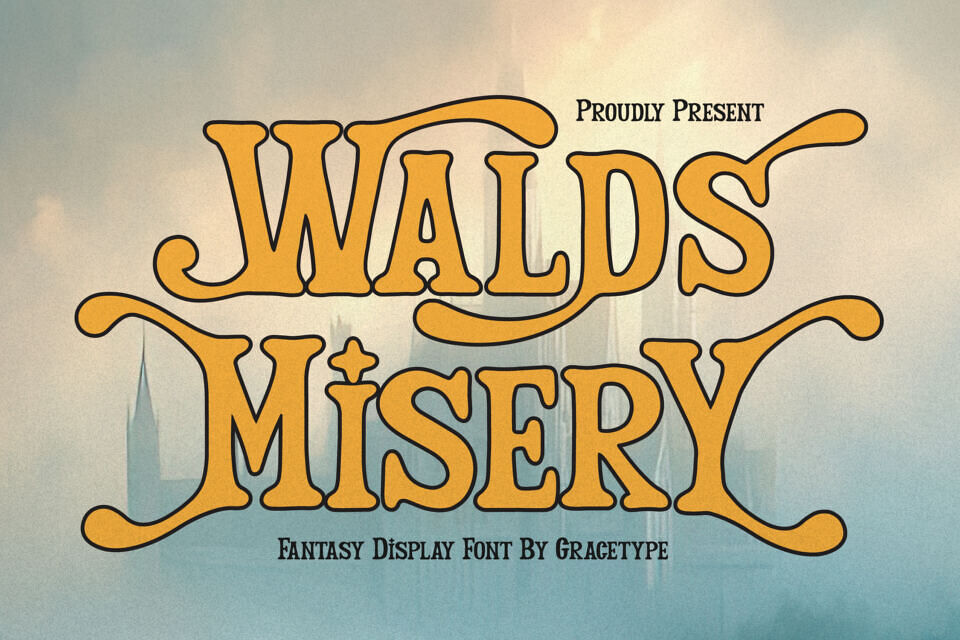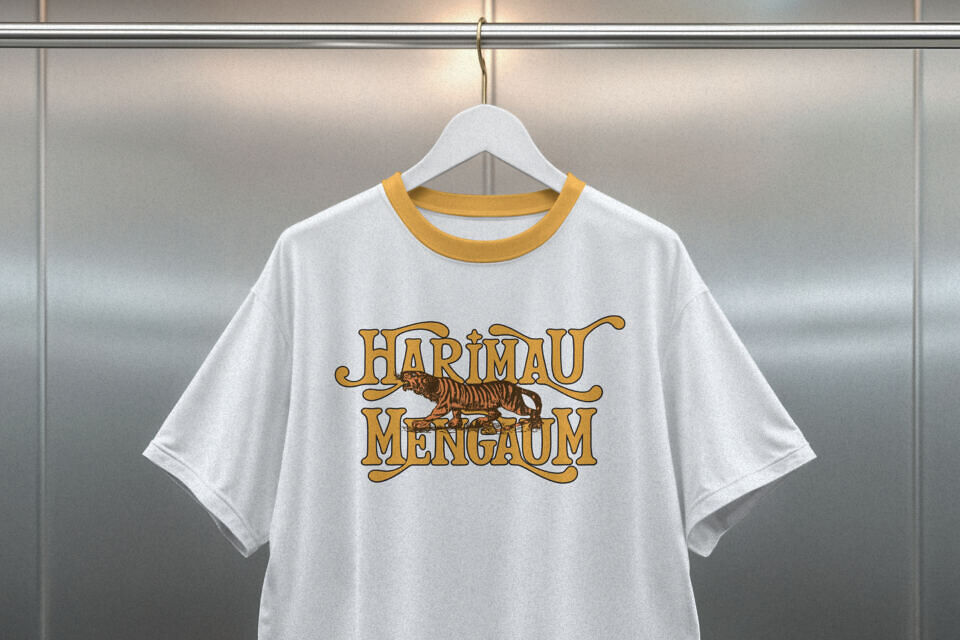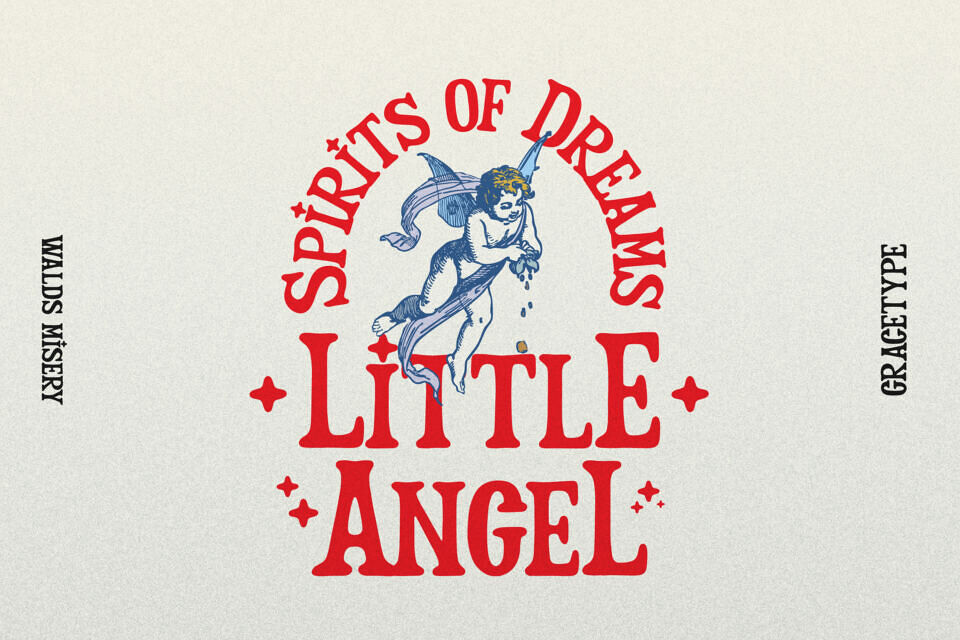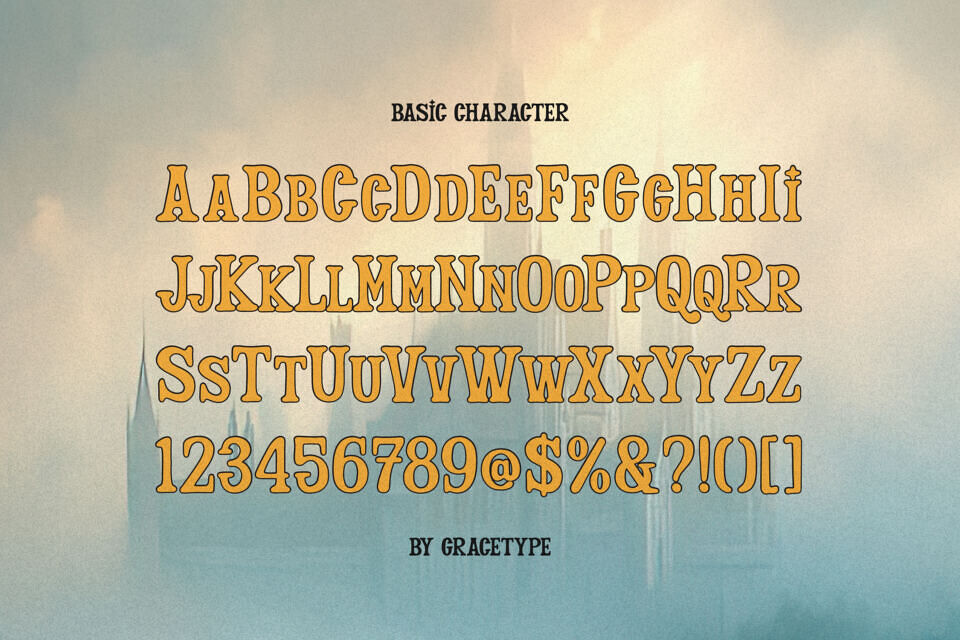
Walds Misery Font
Step into a realm of myth and magic with Walds Misery, a captivating fantasy display font that redefines legendary storytelling. This typeface features bold, flared letterforms characterized by dramatic, sweeping swashes and intricate, flowing ligatures that evoke the architectural elegance of an ancient kingdom.
Walds Misery is an exceptional choice for epic novel covers, fantasy gaming titles, cinematic movie posters, and high-end themed branding. Whether you are crafting a logo for a mythical tavern or a header for a folklore-inspired editorial, this font delivers a sense of timeless adventure and handcrafted mystery to every word.